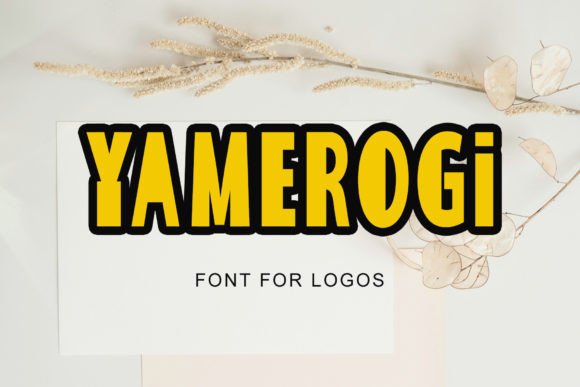
Step into a world of bold and captivating design with Yamerogi Font, the ultimate choice for creating unforgettable impressions. This striking display font exudes power and confidence, making it the perfect choice for headlines, titles, and logos that demand attention. Its thick strokes and sharp edges add a touch of modernity, elevating your designs with a sense of sophistication.
Imagine the impact of your next poster, packaging design, or branding project when it's adorned with the bold strokes of Yamerogi Font. Each letterform is crafted with precision, ensuring that your message stands out from the crowd. Its strong and distinctive style adds a touch of drama and intrigue, inviting viewers to delve deeper into your content.
Whether you're a seasoned designer or just starting to explore the world of typography, Yamerogi Font is an essential tool for creating designs that resonate with your audience. Its versatility extends to a wide range of projects, making it a must-have for designers of all levels.
Indulge in the limitless creative possibilities of Yamerogi Font and watch your designs transform into masterpieces. Experience the power of a font that captivates, influences, and inspires. Download Yamerogi Font today and unleash the bold and impactful side of your designs!